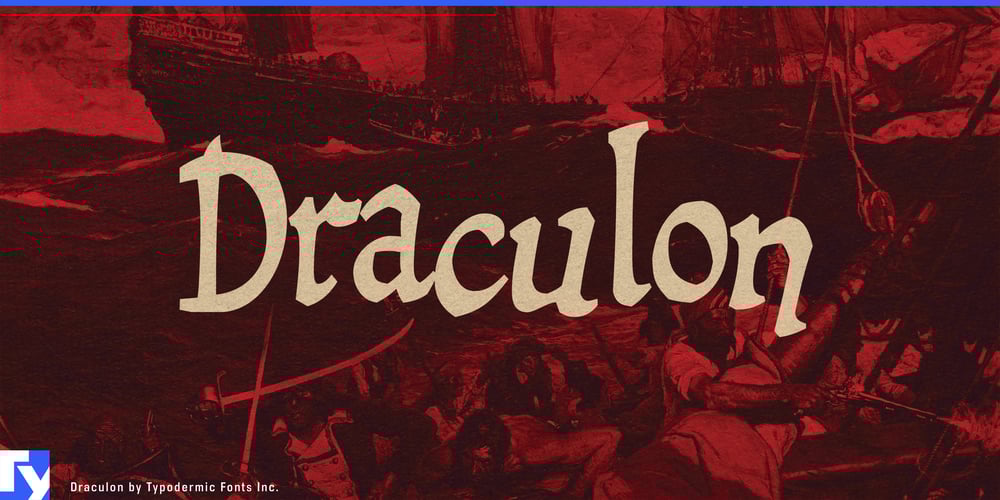
Draculon Font Family was designed by Ray Larabie and published by Typodermic. Draculon contains 1 styles and family package options. Draculon: The typeface that bites back with historical flair. This Typodermic Fonts creation is a time-traveling chameleon, blending 15th-century Italian manuscript elegance with a dash of Transylvanian terror.Inspired by William Orcutt’s 1904 Humanistic font (itself a nod to a 1485 Italian manuscript), Draculon takes a sip from history’s goblet and transforms it into something wickedly new. Each character is a masterpiece of menace, where classical curves meet jagged edges in a dance macabre of design. Picture your brand story told in Draculon, each word dripping with gothic allure yet cutting through modern clutter like a silver stake. Imagine movie posters where titles lurk in the shadows, ready to pounce on unsuspecting eyeballs. Envision book covers that beckon readers into worlds of mystery and intrigue before they’ve read a single word.Draculon’s linguistic bloodline spans an impressive array of Latin-based European and some Cyrillic-based writing systems. From the misty moors of Scotland to the snow-capped peaks of the Carpathians, your message retains its eerie elegance across borders and centuries. This isn’t a typeface for the faint of heart or lovers of the mundane. It’s for designers who dare to walk the line between classical beauty and gothic horror. It’s for brands that want to sink their teeth into the imaginations of their audience, for messages that need to echo through eternity.Ready to unleash typographic terror? Embrace Draculon and watch as your designs rise from the crypt of mediocrity. In a world awash with anemic fonts, Draculon stands apart—a typeface that commands attention through its unholy union of historical gravitas and spine-chilling style.